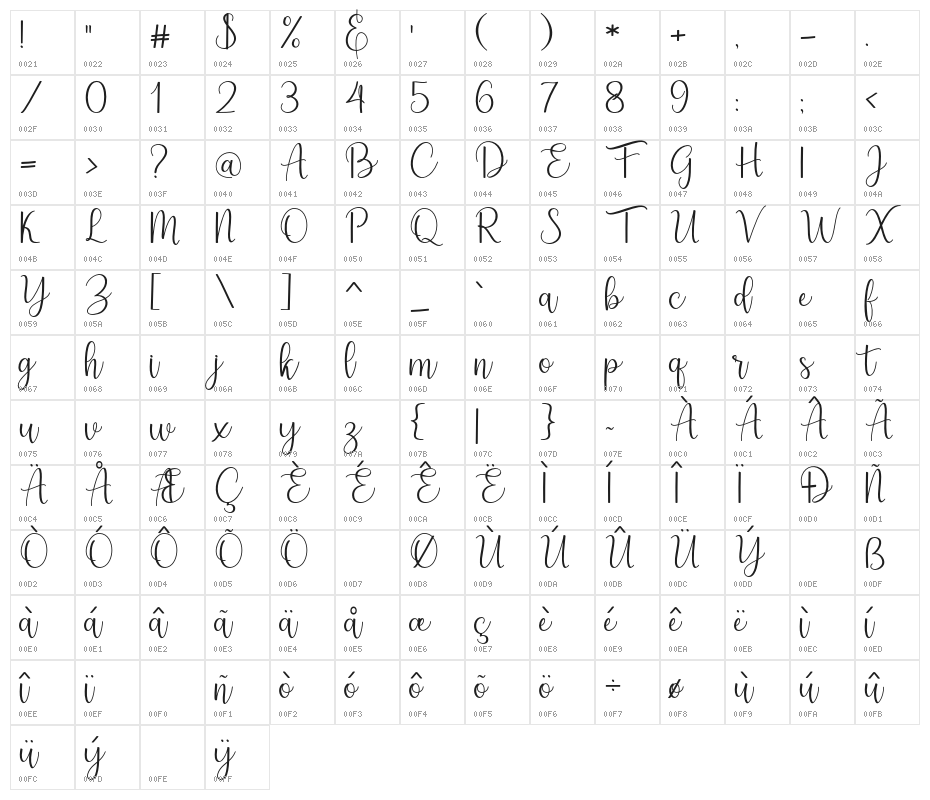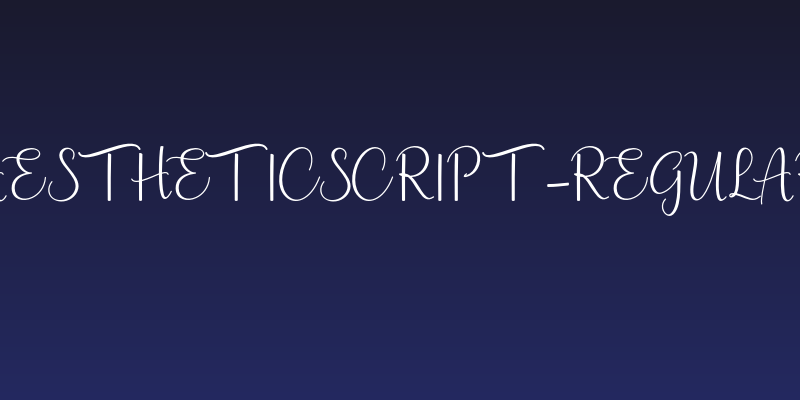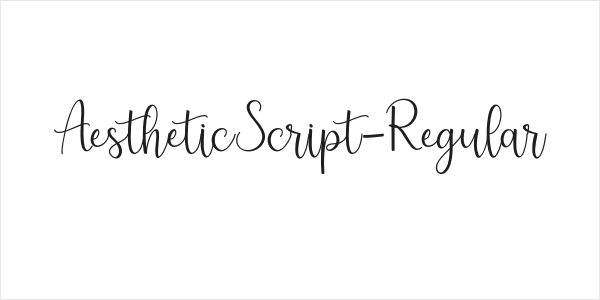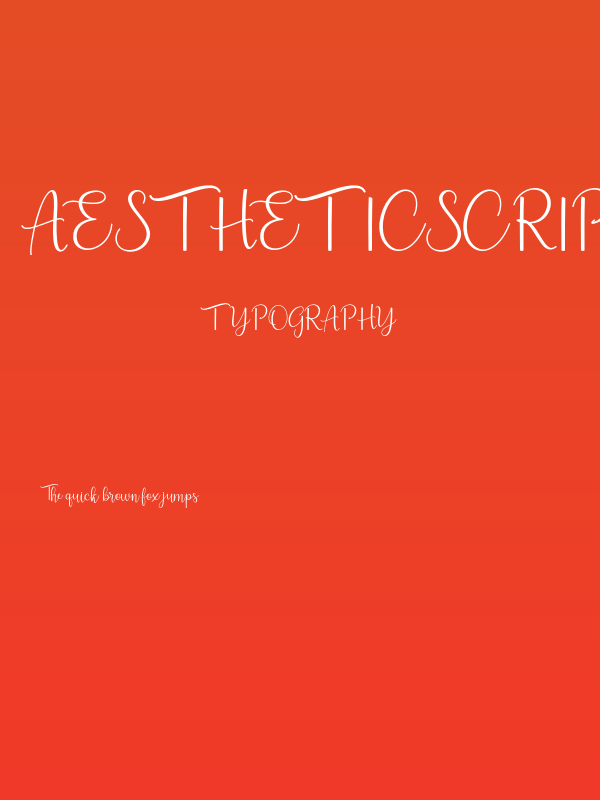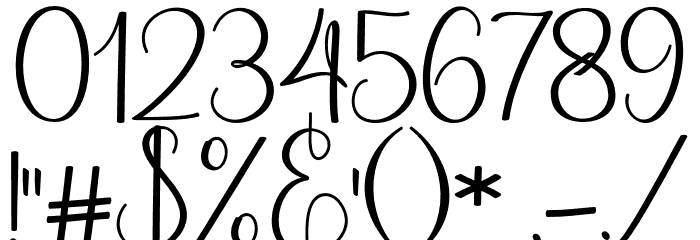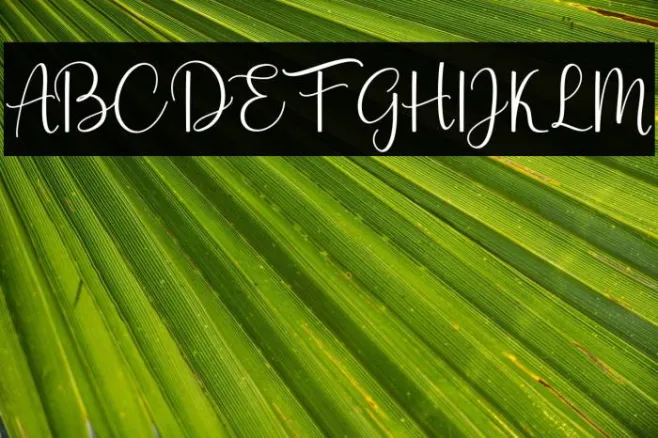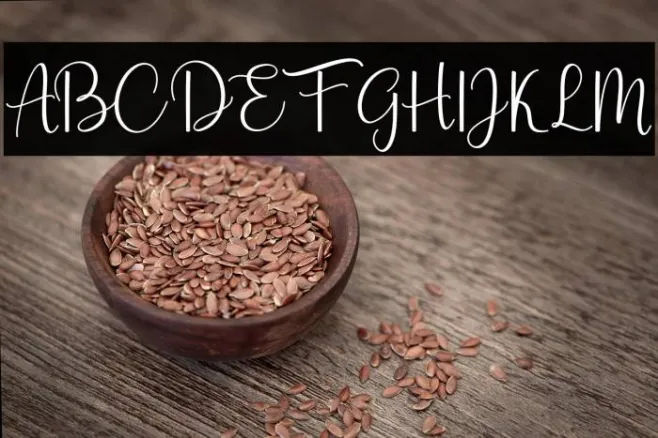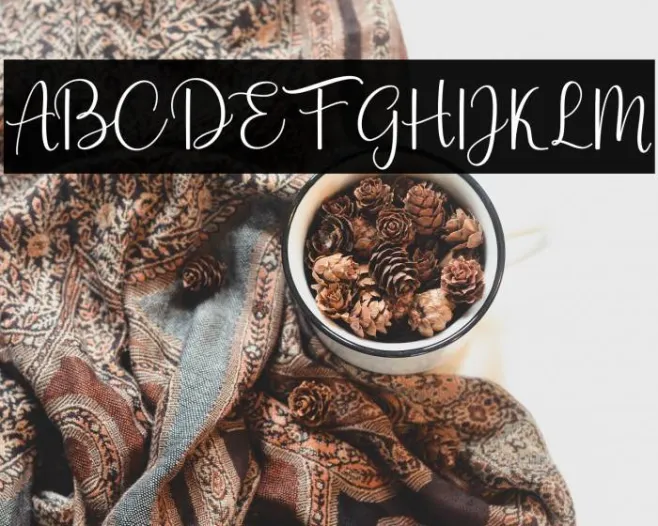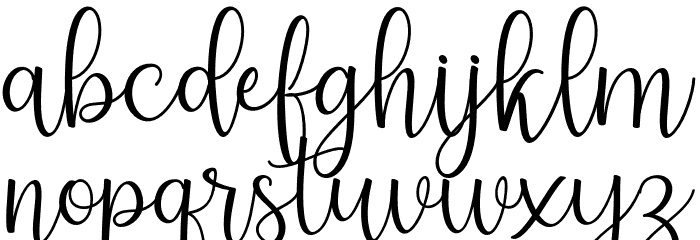
AestheticScript-Regular Font
AestheticScript-Regular Description
This font features a flowing, elegant script style with smooth, connected strokes that mimic the fluidity of handwriting. The uppercase letters are slightly more ornate, with gentle curves and loops, while the lowercase letters maintain a consistent, graceful appearance. The numerals are distinct yet harmonize well with the overall script style. Special characters are crafted with the same attention to detail, ensuring a cohesive look throughout. This font is ideal for projects that require a touch of sophistication and personal flair.
| Proposed Projects | Wedding invitations, greeting cards, branding materials, and elegant packaging designs. |